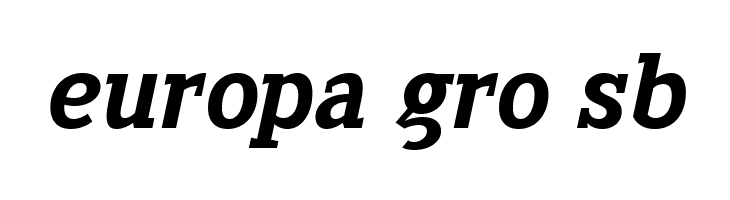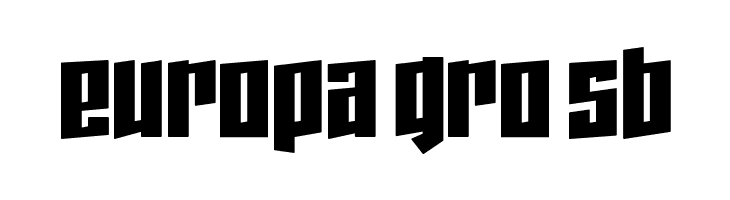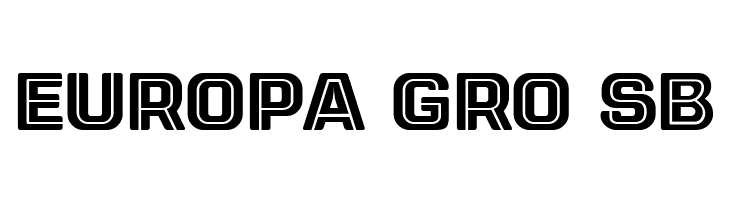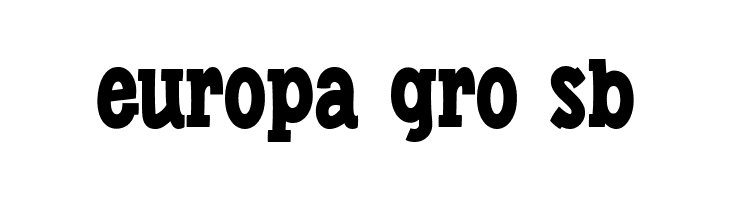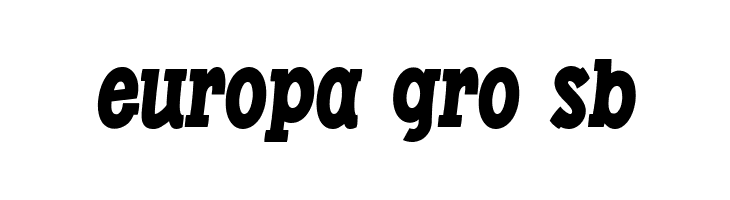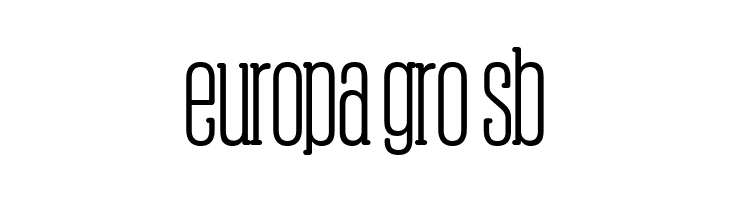
( deFharo - Fernando Haro - defharo.com ) A bold, italicized font with strong strokes and a dynamic slant. Download 52 Downloads@WebFont
( deFharo - Fernando Haro - defharo.com ) A bold, geometric font with a modern and edgy style. Download 72 Downloads@WebFont
( deFharo - Fernando Haro - defharo.com ) A bold, pixelated font with a retro digital aesthetic. Download 63 Downloads@WebFont
( deFharo - Fernando Haro - defharo.com ) A bold, italic, and geometric font with a modern and edgy style. Download 54 Downloads@WebFont
( deFharo - Fernando Haro - defharo.com ) A bold, pixelated font with a geometric, digital aesthetic. Download 45 Downloads@WebFont
( deFharo - Fernando Haro - defharo.com ) A bold, italic, and geometric font with a dynamic and modern style. Download 39 Downloads@WebFont
( deFharo - Fernando Haro - defharo.com ) A bold, geometric font with outlined characters for modern, impactful designs. Download 886 Downloads@WebFont
( deFharo - Fernando Haro - defharo.com ) A bold, high-contrast serif font with strong, block-like serifs. Download 215 Downloads@WebFont
( deFharo - Fernando Haro - defharo.com ) A bold, italic font with a dynamic and energetic style. Download 87 Downloads@WebFont
( deFharo - Fernando Haro - defharo.com ) A bold, elongated serif font with a modern and elegant style. Download 77 Downloads@WebFont